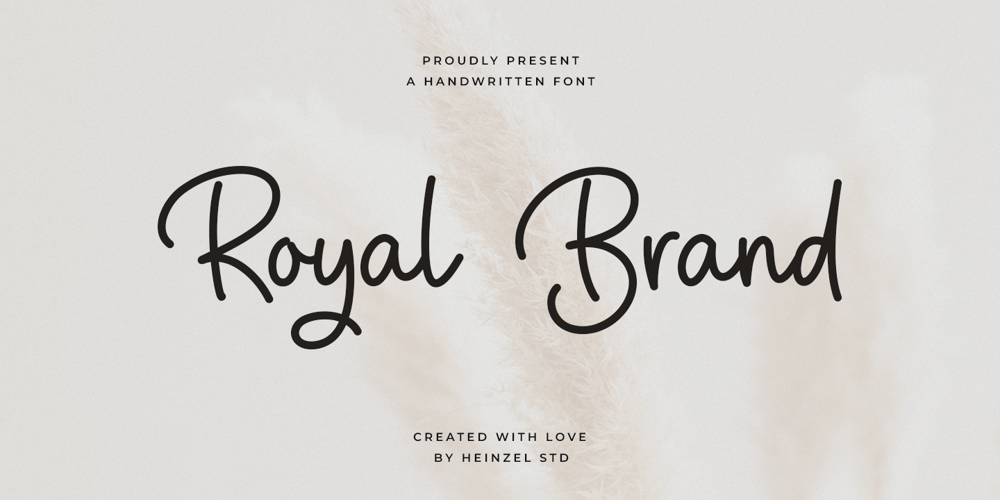
Royal Brand
Royal Brand font
Royal Brand Font Family was designed by Nofi Sofyan Hadi and published by Heinzel Std. Royal Brand contains 1 styles and family package options. Royal Brand is a flowing handwritten font, described by an elegant touch, perfect for your favorite projects. It looks stunning on wedding invitations, thank you cards, quotes, greeting cards, logos, business cards and every other design which needs a handwritten touch. Fall in love with its incredibly distinct and timeless style and use it to create spectacular designs!